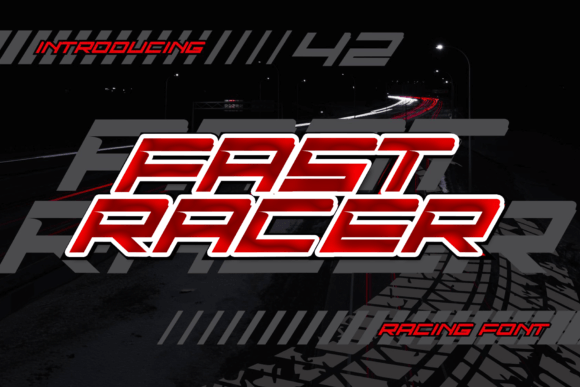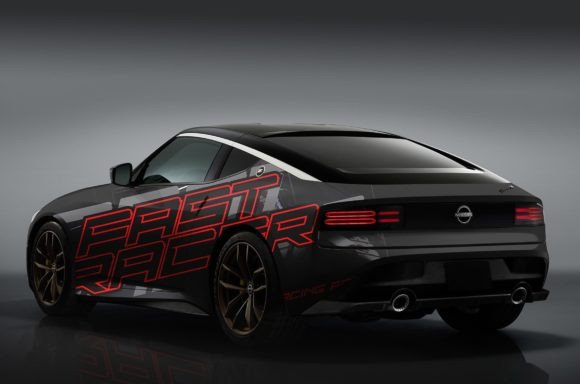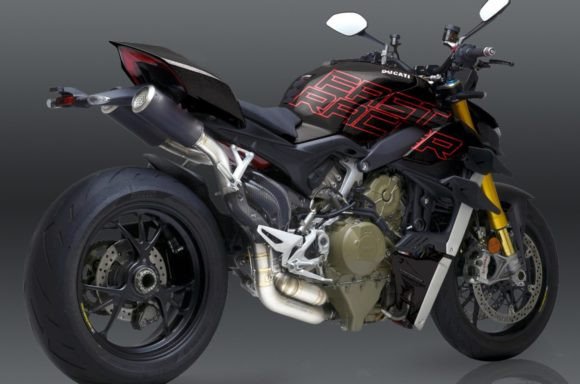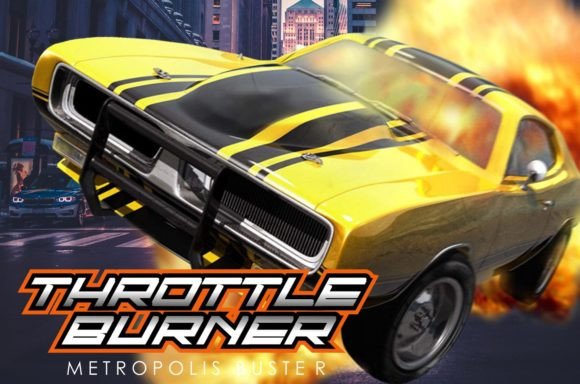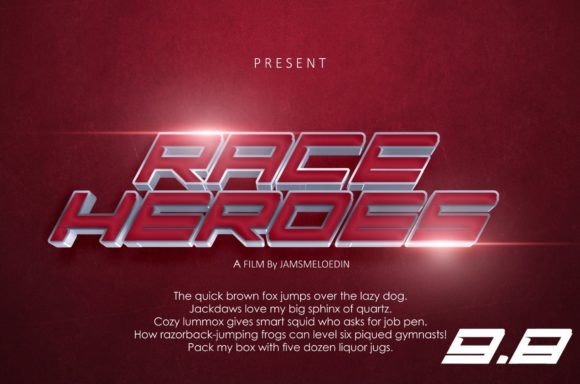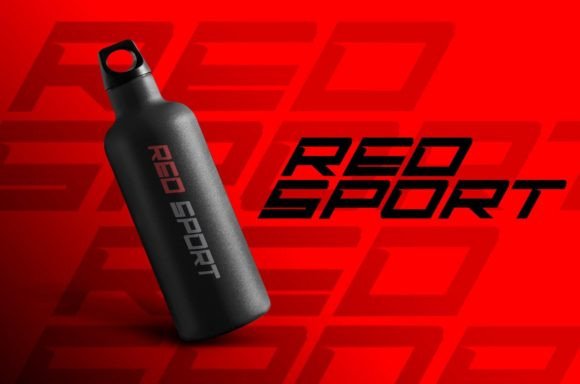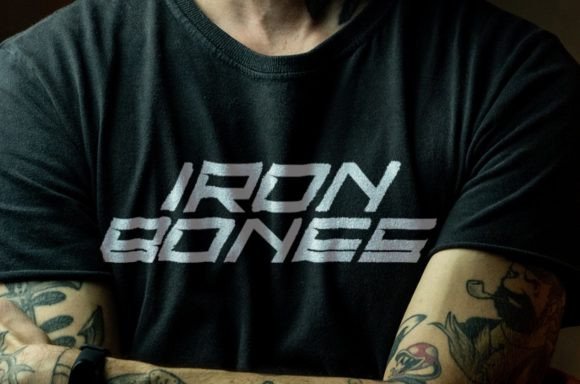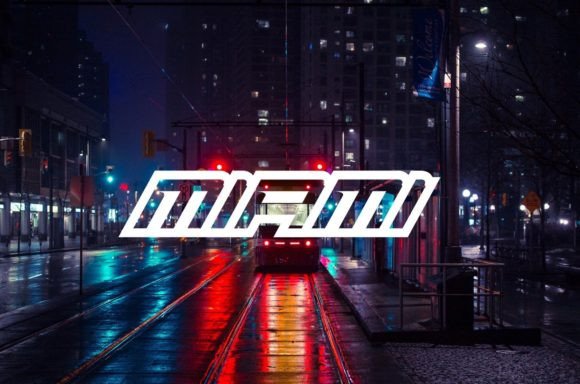
Fast Racer is a futuristic and bold display font. Its sporty character makes it suitable for all your racing or automotive-related projects.
Fast Racer Font